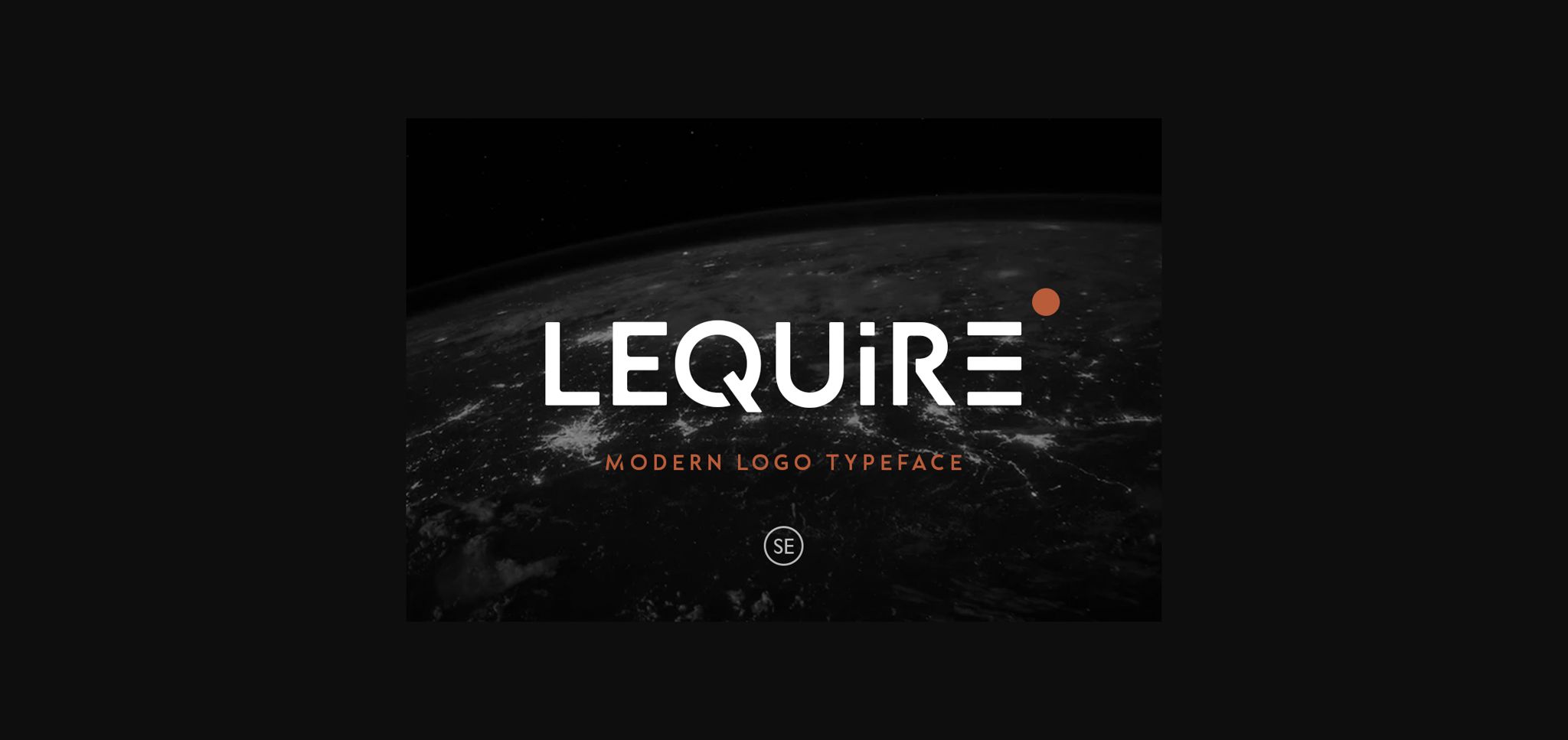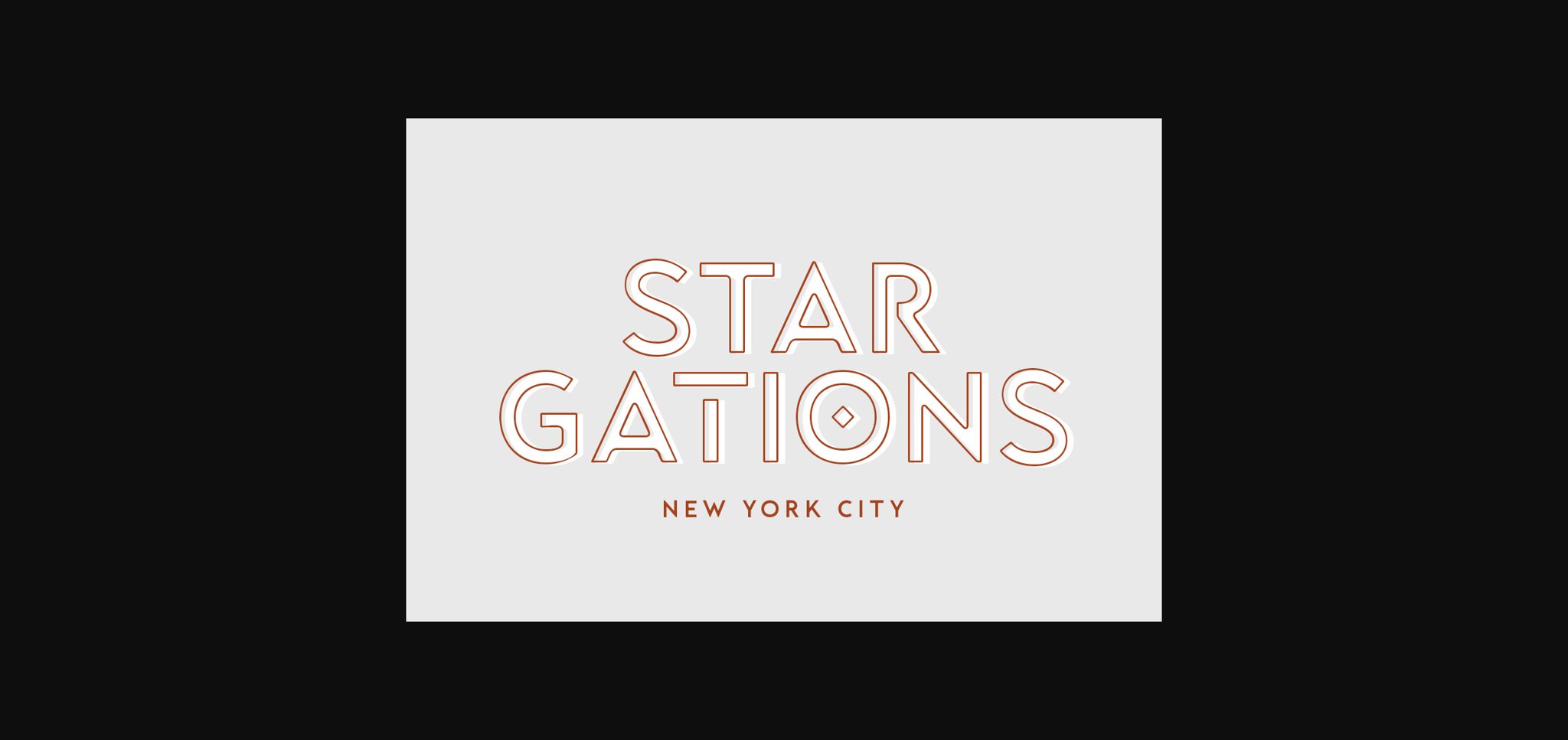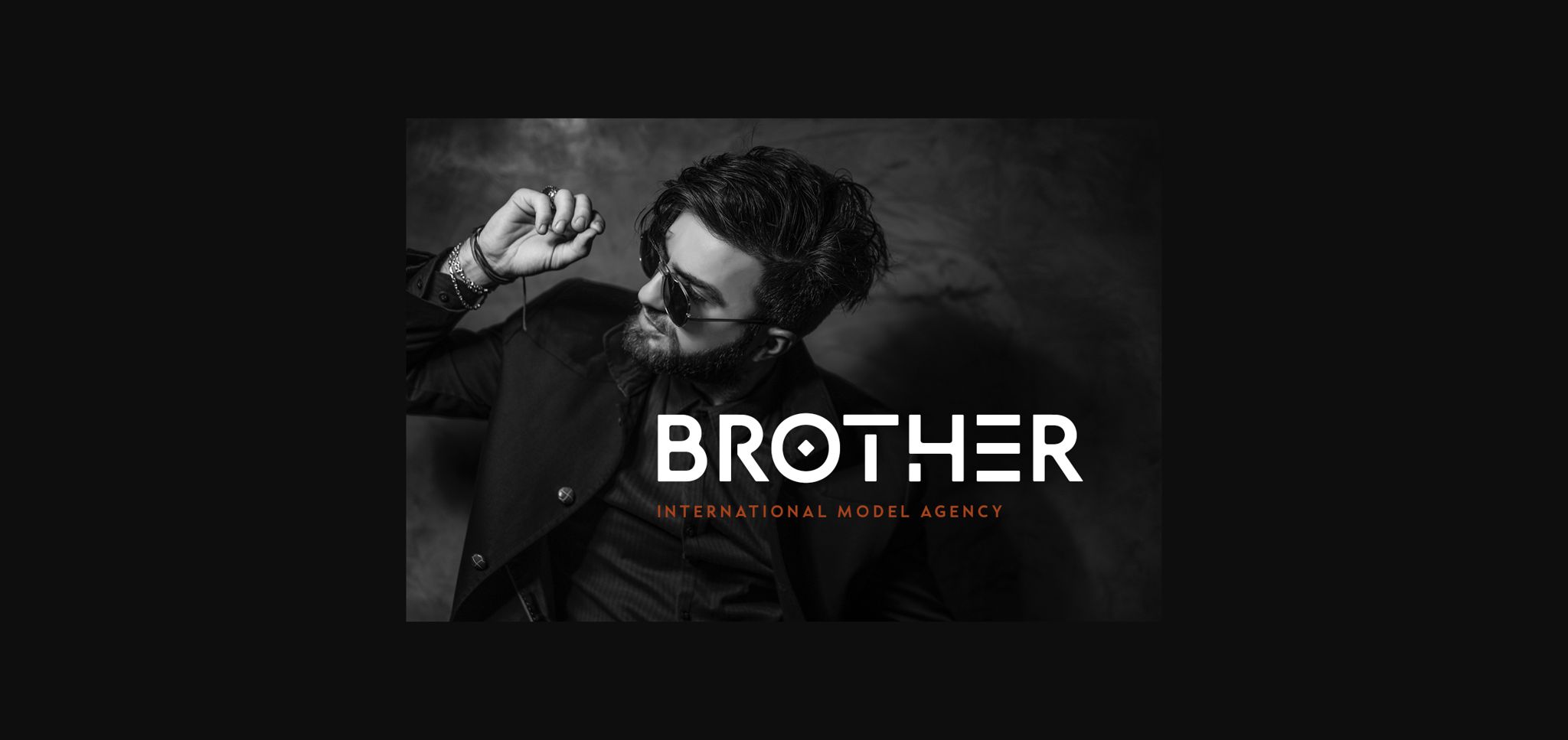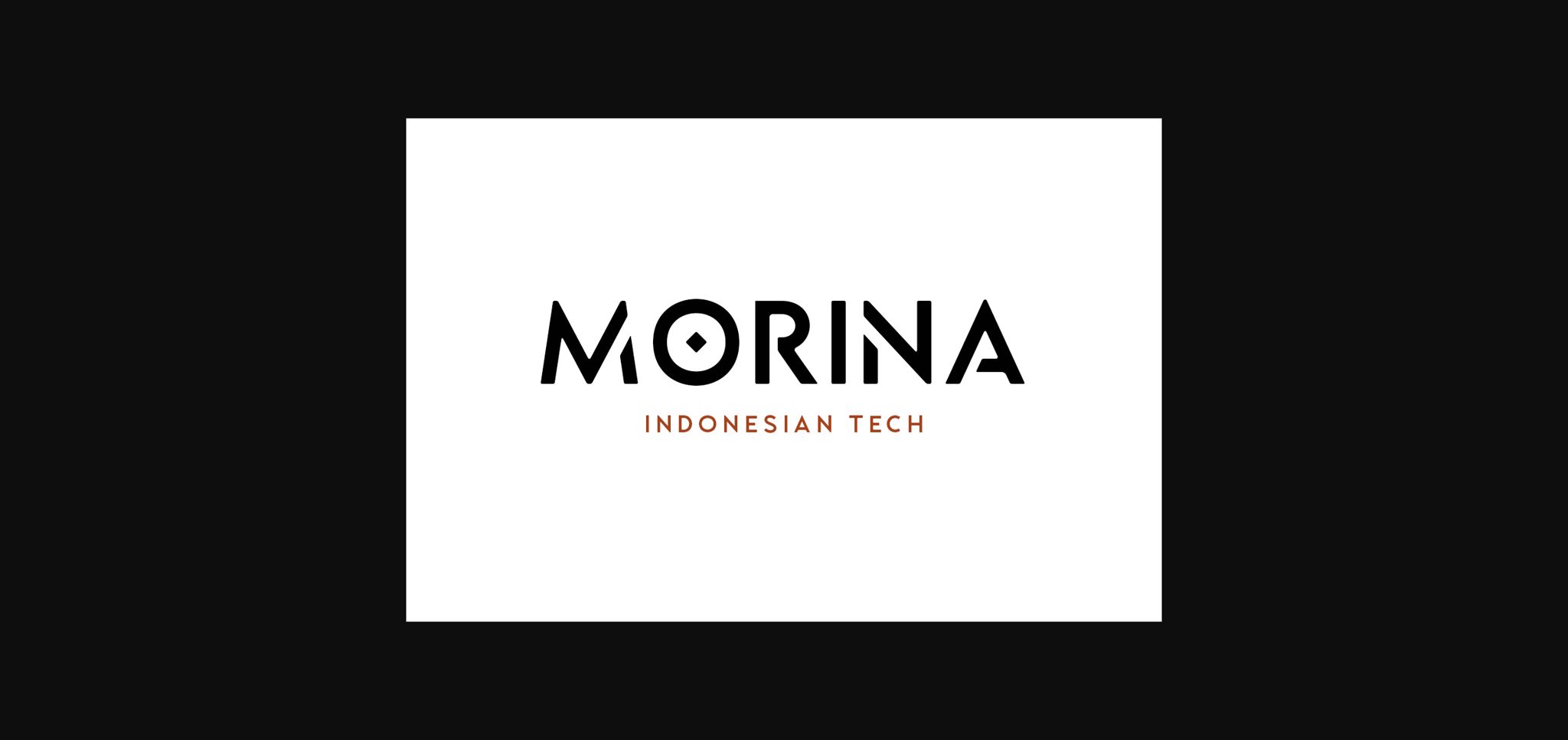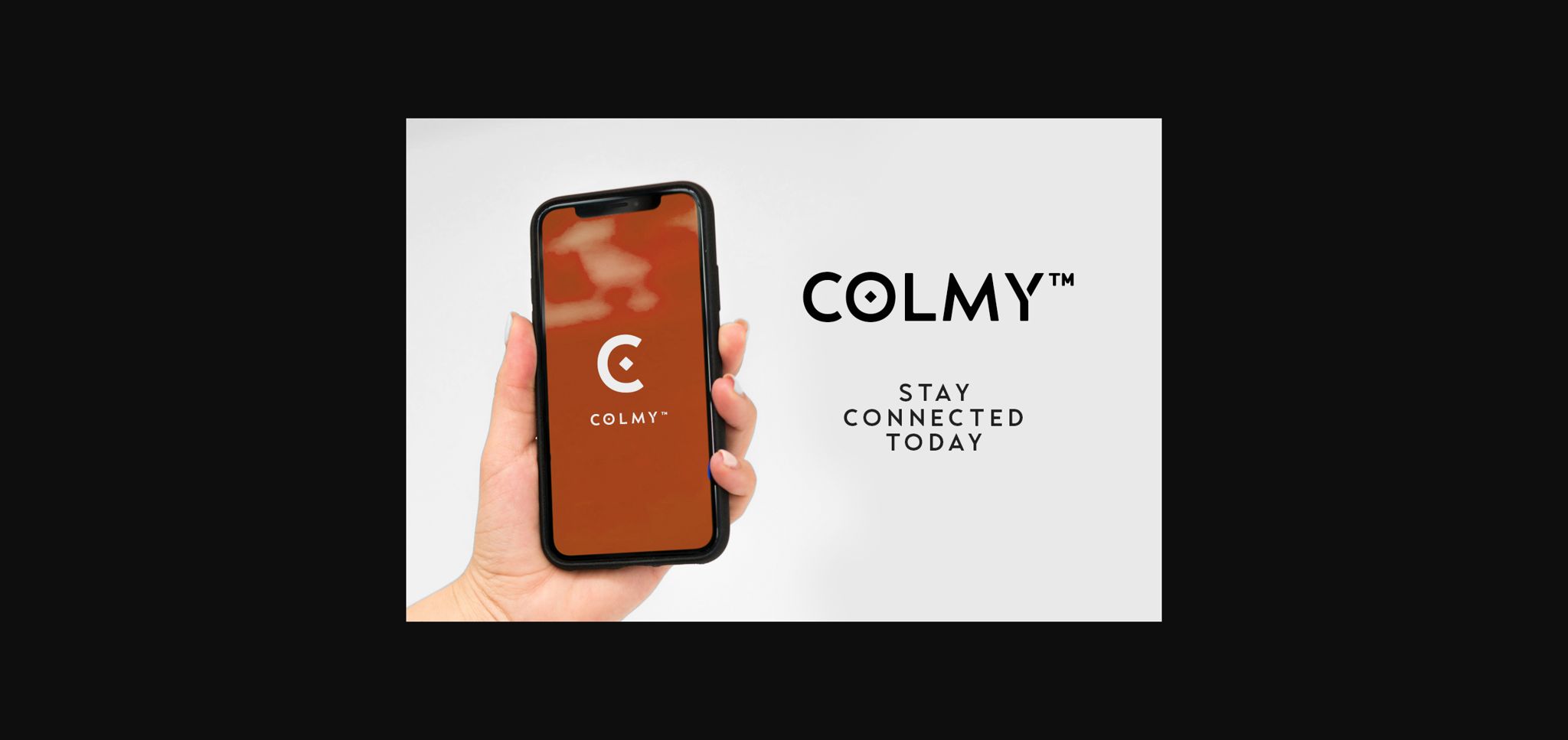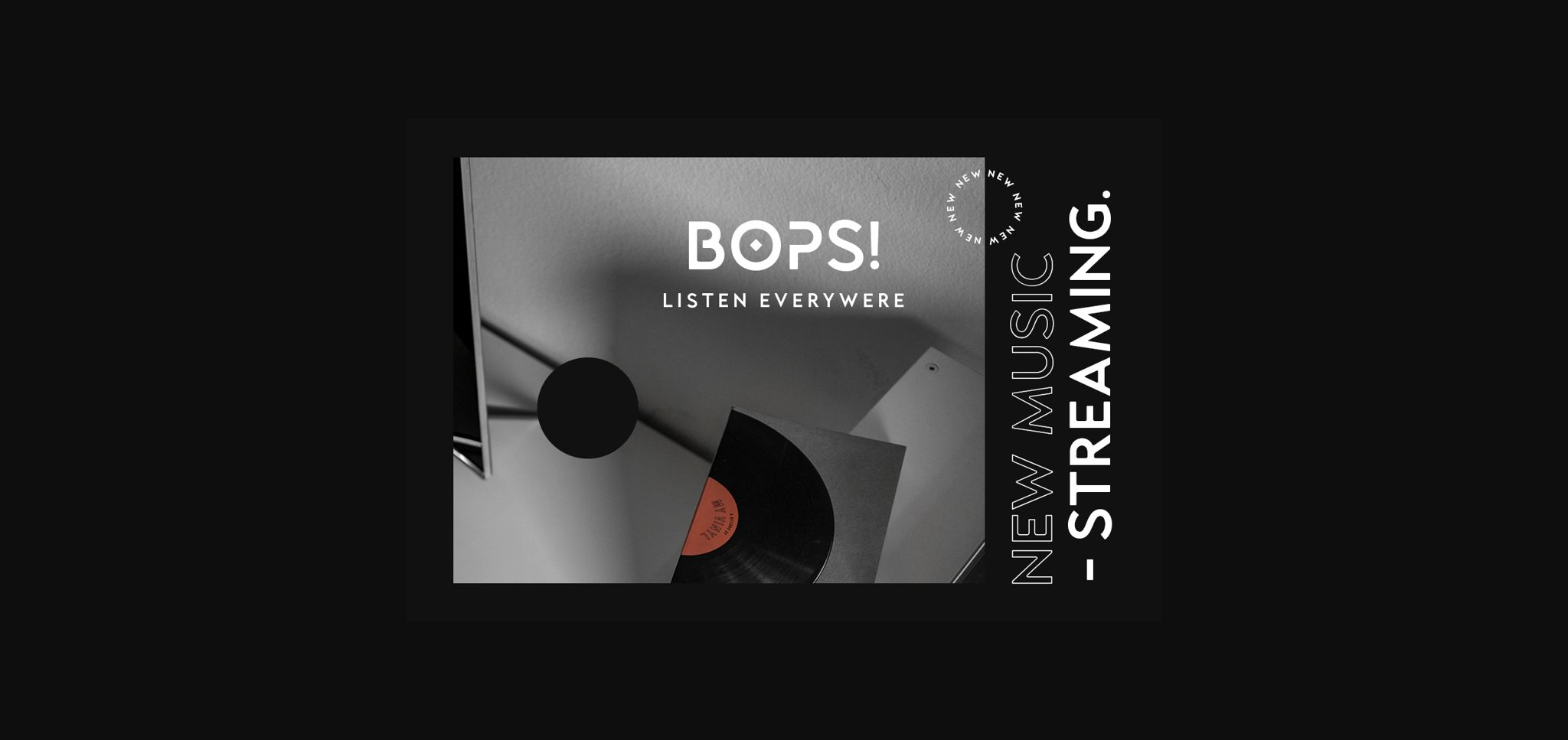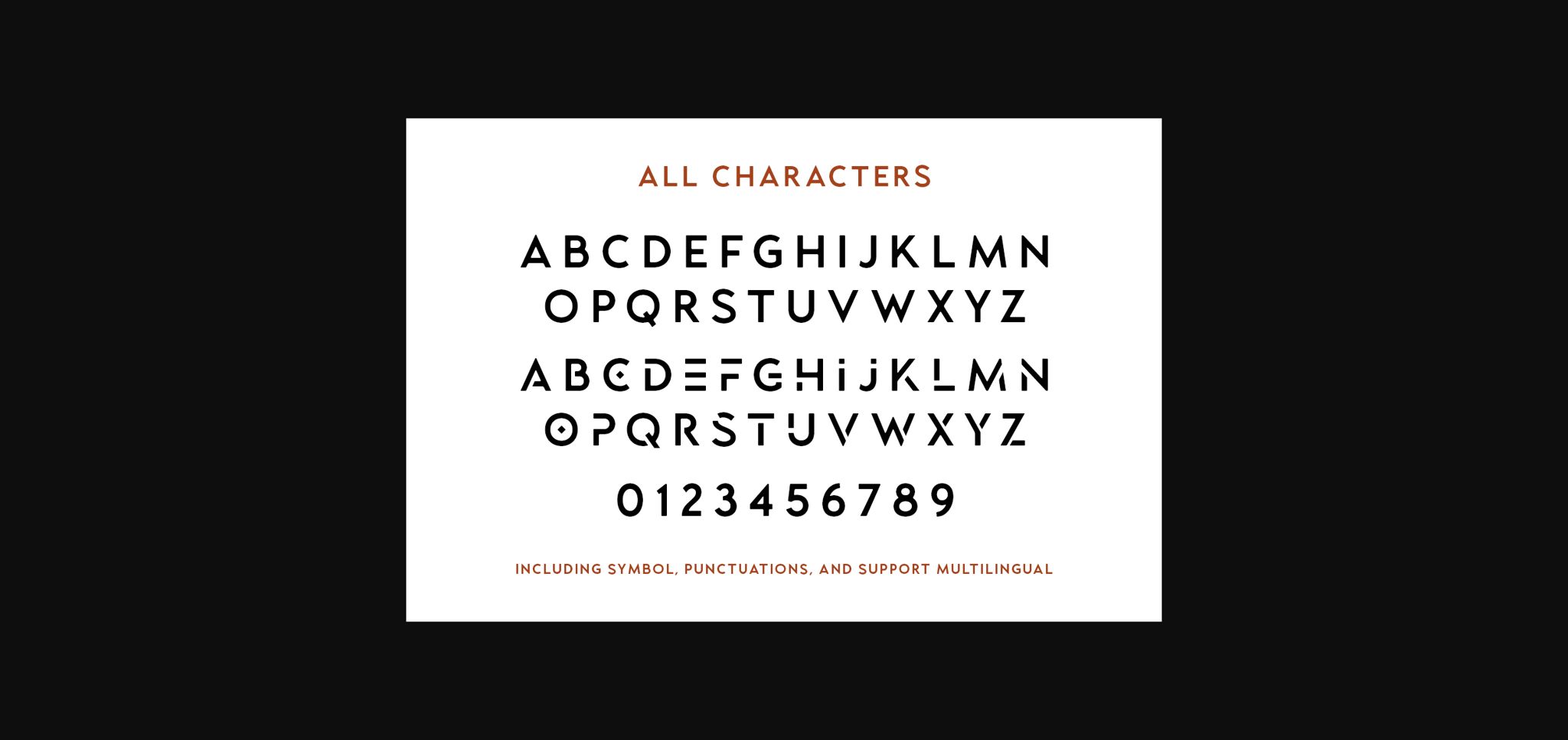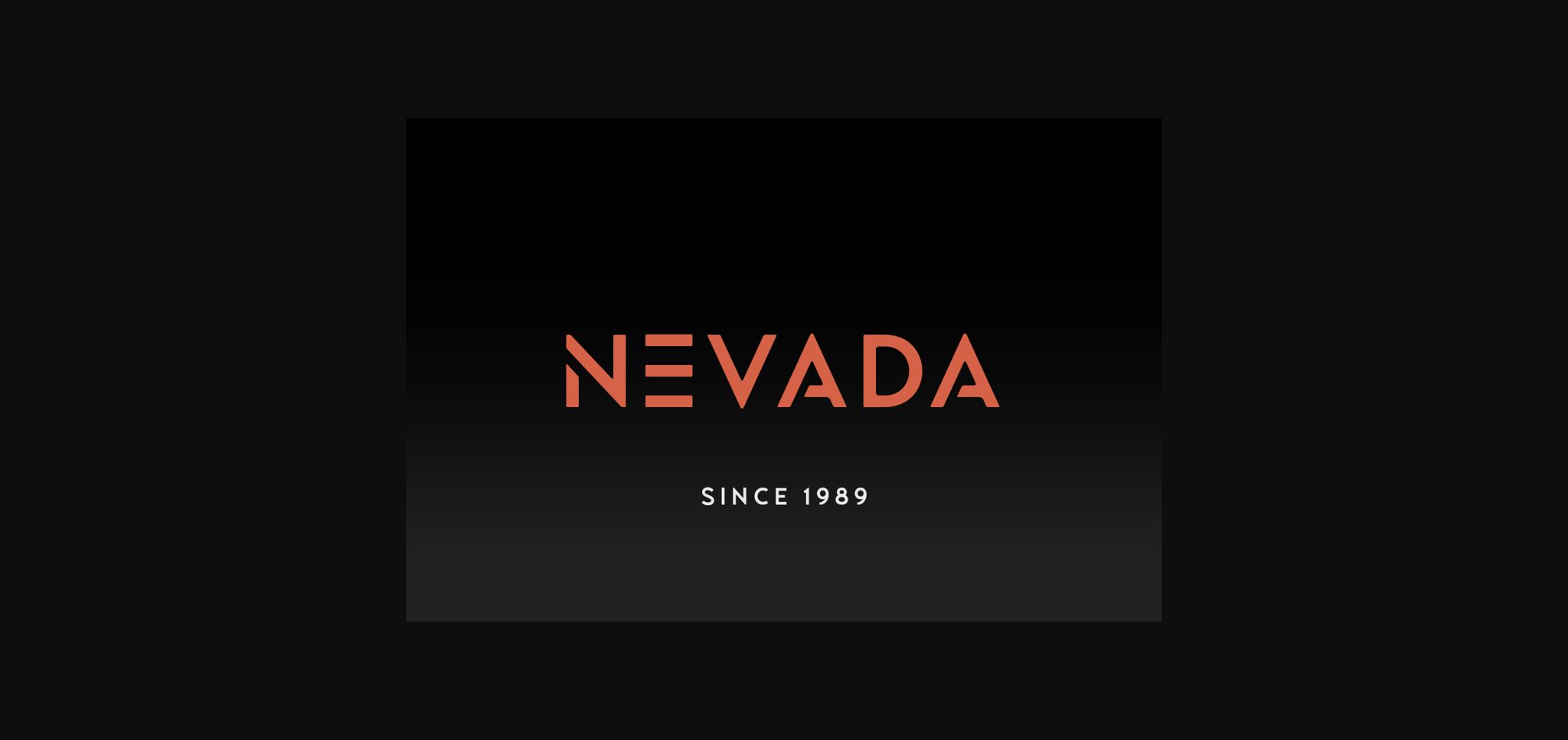
Lequire Font
About Lequire Font
Lequire emerges as a sleek and contemporary sans serif font, meticulously crafted to infuse your projects with a modern and futuristic aesthetic. Designed to captivate and inspire, this font elevates your creative endeavors to new heights, becoming a cherished asset in your design toolkit.
The essence of Lequire lies in its ability to imbue your projects with a sense of sophistication and innovation. With its clean lines and minimalist design, this font exudes a sleek and futuristic allure that resonates with modern sensibilities. Whether you’re designing sleek logos, crafting dynamic headlines, or developing cutting-edge branding materials, Lequire effortlessly elevates your designs to the highest level.
What sets Lequire apart is its masterful design and attention to detail. Every curve and angle is meticulously crafted to ensure optimal legibility and visual impact, making it a true favorite among designers. With its versatility and adaptability, Lequire seamlessly integrates into a wide range of projects, from digital interfaces to print collateral, enhancing the overall aesthetic and leaving a lasting impression on your audience.
Moreover, Lequire’s potential to elevate your creative ideas knows no bounds. Its sleek and futuristic look inspires creativity and innovation, empowering you to push the boundaries of design and explore new possibilities. Whether you’re working on branding campaigns, website designs, or marketing materials, Lequire provides the perfect canvas for bringing your vision to life with unparalleled style and sophistication.
Incorporating Lequire into your projects is sure to unlock a world of possibilities and take your designs to new heights. With its modern aesthetic and masterful design, this font has the power to transform each of your creative ideas into a masterpiece that captures attention and inspires admiration.
In summary, Lequire is more than just a font; it’s a catalyst for creativity and innovation. With its modern and futuristic look, this font has the potential to elevate your projects to the highest level, becoming an indispensable asset in your design arsenal. Embrace Lequire and watch as your creative ideas flourish with unmatched style and sophistication.